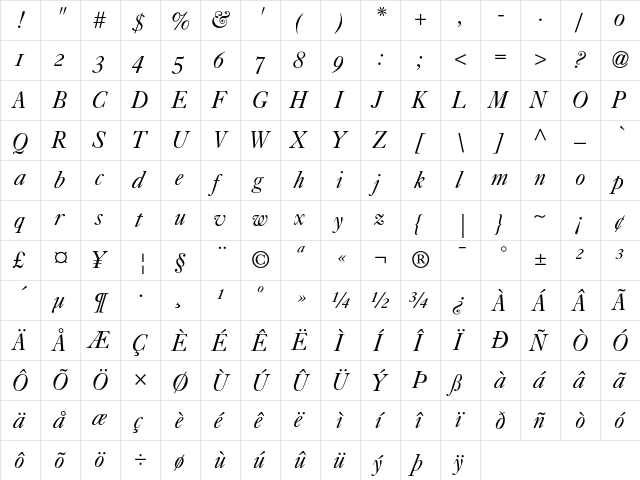
Caslon 540 Italic Oldstyle Figures Font Preview
Caslon 540 Italic Oldstyle Figures
Design Context for Caslon 540 Typeface
Caslon 540 carries the refined structure of traditional serif typography, with bracketed terminals and considered proportions that communicate credibility and craft. The dynamic lean of this cut emphasises speed and emphasis in any layout.
Pro Tip: Use Caslon 540 for editorial body copy and considered headline work. Pair with a neutral sans for UI elements or captions to create a classic hierarchy.